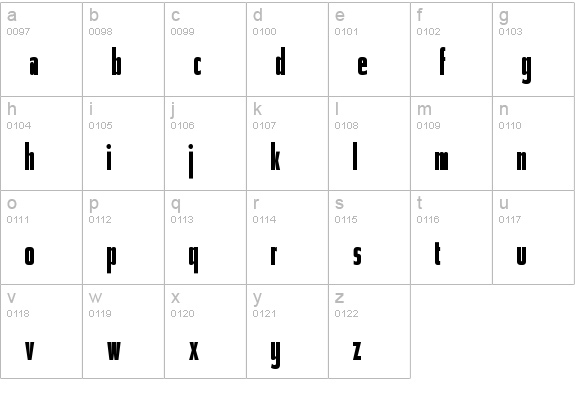
Tasse Bold Comp is a strong, high-contrast variant in the Tasse typeface family \xE2\x80\x94 well suited to headlines, attention-grabbing titles, and strong calls-to-action.
Introducing the captivating Tasse Bold Comp font, a versatile typeface that combines boldness and elegance in perfect harmony. Designed with meticulous attention to detail, this font exudes a confident and modern aesthetic, making it ideal for a variety of design projects. With its bold and powerful letterforms, Tasse Bold Comp commands attention and leaves a lasting impression. Whether you're designing a striking headline, a captivating logo, or eye-catching promotional materials, this font will effortlessly elevate your creations to new heights. What makes Tasse Bold Comp even more enticing is that it is freely available to download at FontsMarket.com. This means that you can unleash your creativity and explore the endless possibilities of this remarkable font without any restrictions. Incorporate it into your digital or print designs, and watch as it breathes life into your work. The versatility of Tasse Bold Comp truly knows no bounds. Its clean and legible design ensures readability, even at smaller sizes, making it an excellent choice for body text in editorial layouts or website content. Additionally, its bold and impactful appearance makes it perfect for display purposes, adding a touch of sophistication to posters, banners, and signage. The carefully crafted curves and sharp edges of Tasse Bold Comp create a harmonious balance that lends a sense of professionalism and refinement to any project. Its timeless appeal and modern edge make it suitable for a wide range of industries, from fashion and beauty to technology and corporate branding. Don't miss out on the opportunity to enhance your design toolkit with the extraordinary Tasse Bold Comp. Download this font for free at FontsMarket.com and unlock its full potential. Elevate your designs, captivate your audience, and make a lasting impression with this exceptional typeface.